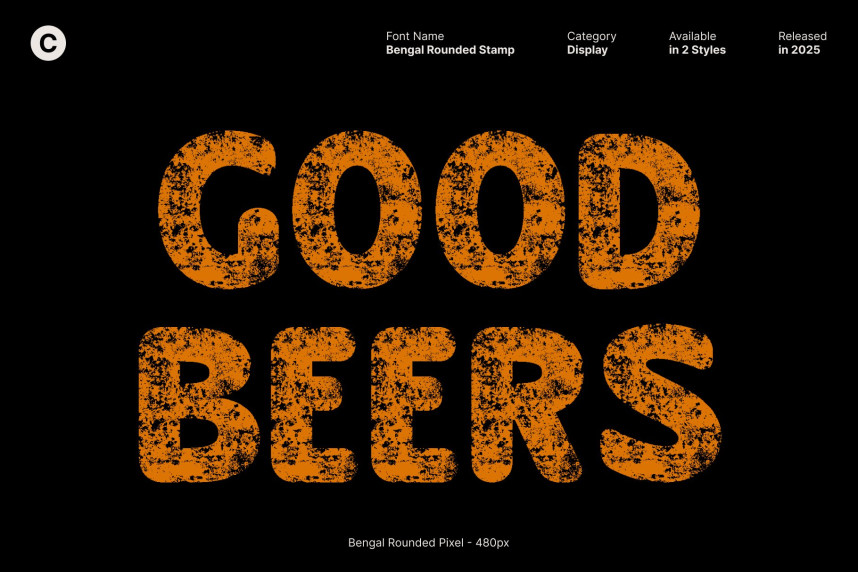
Bengal Rounded Stamp Font
Bengal Rounded Stamp Font – Bold, Playful, and Full of Vintage Rhythm A Display Font That Performs with Energy and Style. This isn’t just a typeface it’s a performer. Every letter delivers bold presence and lively character, creating a design voice that feels confident, dynamic, and full of charm. With its rounded forms and expressive rhythm, this font brings a sense of movement and personality to any layout.